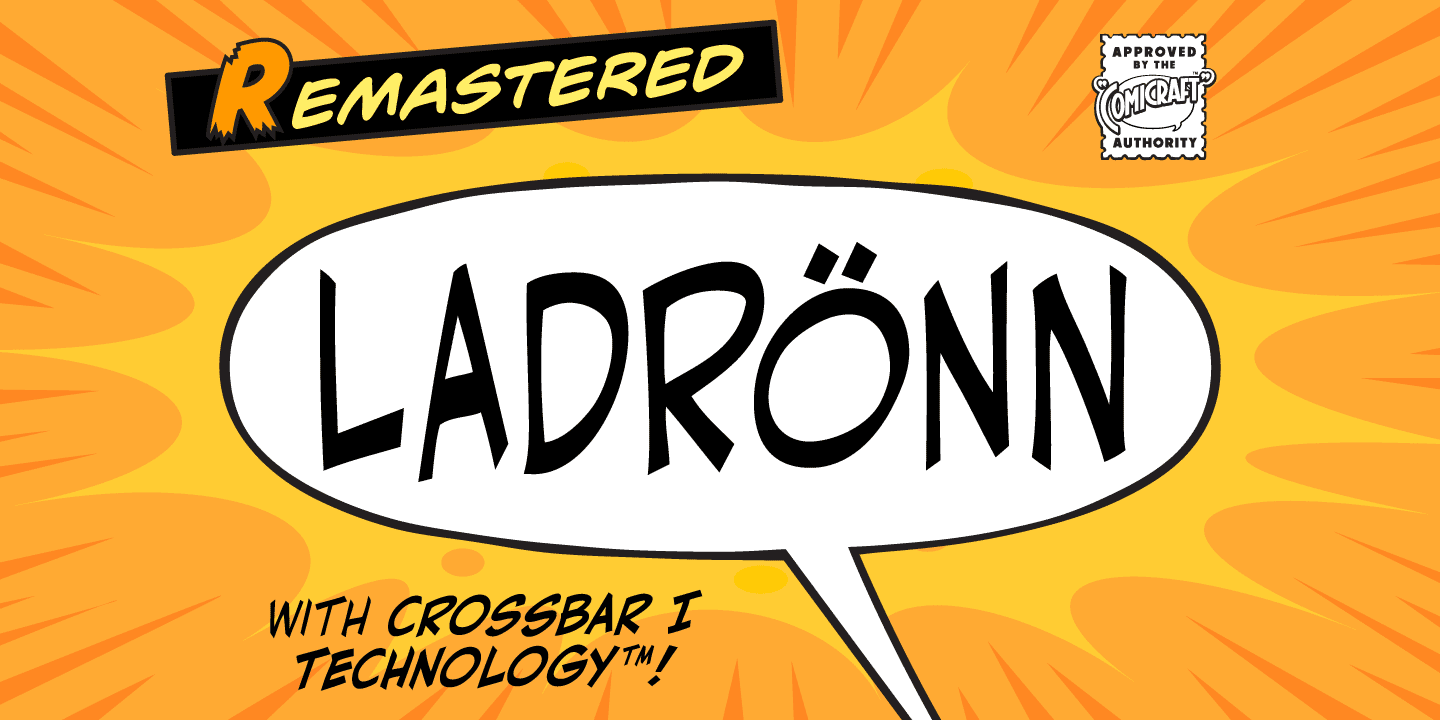
Ladronn Font is perfect for comic book titles, graphic novel covers, superhero movie posters, gaming brand identities, action figure packaging, pop culture merchandise, and dynamic entertainment marketing that requires bold, heroic typography with dramatic visual impact.
This font is exciting because it captures the raw power and dynamic energy of classic comic book lettering, featuring bold, angular letterforms that convey strength, adventure, and superhero aesthetics while maintaining exceptional readability across various media formats.
The Ladronn Font family includes regular and bold weights with outlined variants, offering uppercase and lowercase letters, dramatic numerals, comic-style punctuation marks, and special effects characters designed specifically for graphic storytelling applications.
Entertainment designers frequently choose Ladronn Font Free Download for projects requiring authentic comic book atmosphere and heroic visual presence. This powerful typeface instantly transforms ordinary text into compelling narrative elements that resonate with audiences seeking adventure and excitement. The font's commanding character makes it exceptionally effective for gaming interfaces, superhero merchandise, and pop culture marketing where dynamic energy must be communicated immediately. Its authentic comic book heritage bridges nostalgic appeal with contemporary design trends, making it invaluable for brands targeting geek culture and entertainment enthusiasts. The carefully constructed letterforms maintain their dramatic impact across digital screens and large-format prints, ensuring consistent brand recognition and emotional engagement. Whether you're developing gaming brand identities, creating comic convention materials, or designing superhero-themed campaigns, this typeface delivers the authentic comic book voice and visual excitement that distinguishes memorable entertainment brands from generic competitors, establishing instant connection with audiences who appreciate genuine pop culture authenticity and heroic storytelling traditions.